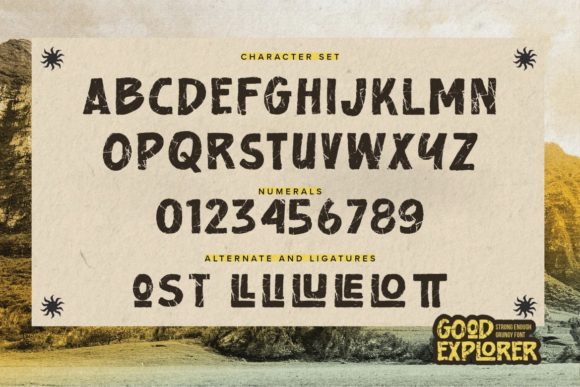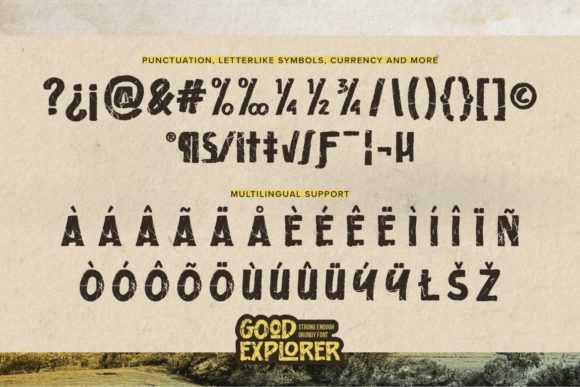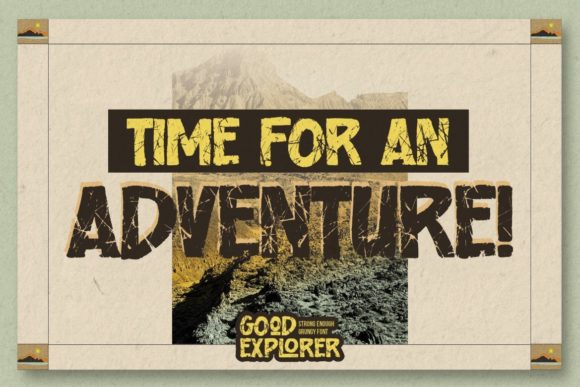
Introduction to Good Explorer Font
Good Explorer is a strong lettered and rough textured display font.
This original look will appeal to a wide range of crafty ideas, from letterheads and titles, to stationery .
Key Features of Good Explorer Font